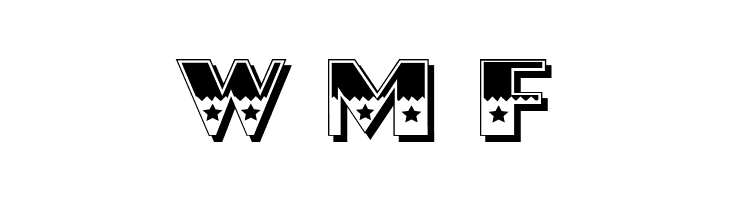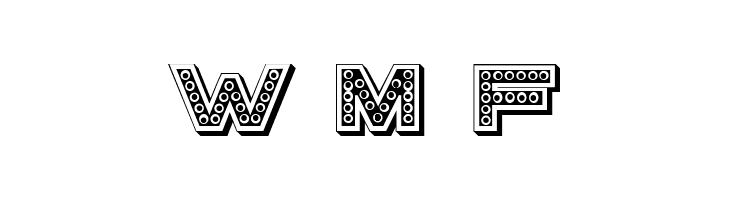
A bold, explosive display font with chaotic, jagged shapes.
A bold, fragmented font with a dynamic and edgy appearance.
A bold, playful font with integrated legal symbols for a unique twist.
A bold, geometric font with sharp angles and a modern aesthetic.
A distressed, grunge serif font with a textured, hand-drawn appearance.
A bold, stacked font with a modern and impactful design.
A bold, dripping font with a horror-themed, decorative style.
A bold, decorative font with star-filled characters and thick outlines.
A bold, decorative font with intricate patterns and a vintage marquee style.
A fluid and elegant handwritten font with a natural, dynamic style.
A lively, handwritten font with fluid strokes and a playful style.
A geometric, angular font with a modern, futuristic style.
A geometric, three-dimensional font with diamond-like facets and bold, angular lines.
A bold, geometric font with a three-dimensional, gemstone-like appearance.
A bold, geometric font with sharp, angular design elements.
A decorative font with ornate patterns and elegant flourishes.
A playful, dot-connected font with a bold and whimsical design.
A stylish Art Deco-inspired font with geometric precision and elegance.
A modern Art Deco-inspired font with geometric and elegant elements.